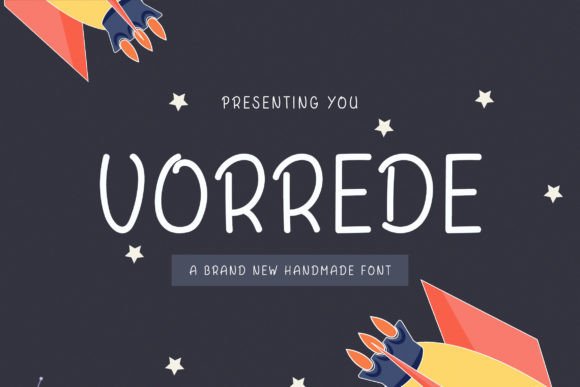
Welcome, seekers of artistic expression, to the realm of the Vorrede Handmade Font, a font that exudes elegance and playfulness in equal measure. Its graceful characters, like liquid strokes frozen in time, are a testament to the beauty of imperfections.
Vorrede Font, with its natural and flowing lines, beckons you to embrace the organic beauty of handwritten artistry. Whether you're crafting elegant packaging, captivating presentations, or logos that leave a lasting impression, Vorrede Font becomes your artistic confidant, elevating your creations to new heights of beauty.
Unleash your inner designer as you explore the versatility of Vorrede Font. Its characters, carefully crafted to showcase the nuances of human touch, harmoniously blend with a variety of design aesthetics. Be it bold headlines that demand attention or delicate lettering that whispers secrets, Vorrede Font effortlessly adapts to your artistic vision.
Transport yourself to a world of boundless creativity, where Vorrede Font becomes your muse. Let your imagination run free as you design eye-catching posters, create unforgettable branding elements, or craft heartfelt quotes that resonate with your audience. With Vorrede Font at your disposal, the possibilities are endless.